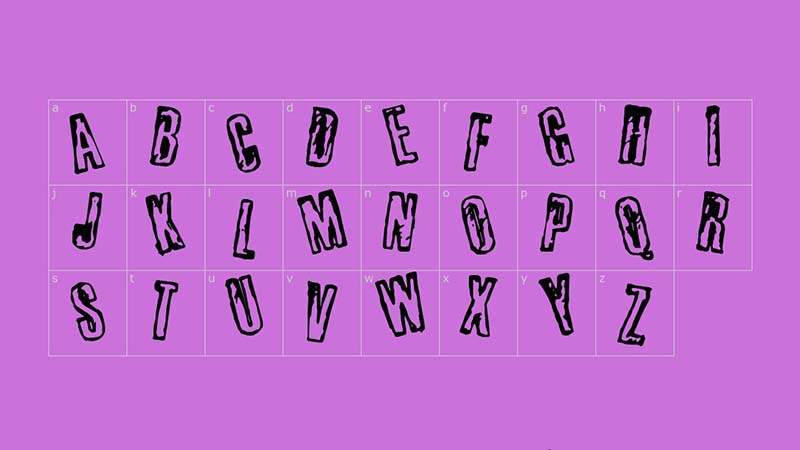
Let’s talk about the new and free fancy typeface that is famous for its distorted and jingly appearance known as Busseta Font. The charge of styling this typeface has been taken by Douglas Vitkauskas.
In this typeface, all the features are available that are required by a designer to create some amazing design and this also works well when used with the combination of happy sans font and used for different designing activities.
The texture of this typeface is stylish and all the letters come with their unique styling and appearance that you can easily use for multiple designs and the best choice for creative designing.